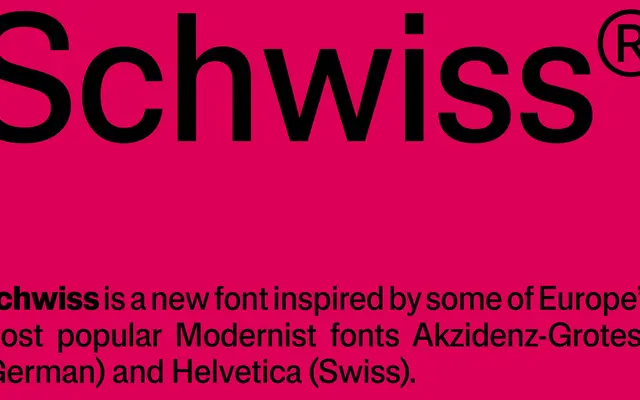
Schwiss
A 14-style grotesque that draws on Akzidenz-Grotesk and Helvetica, retaining closed apertures and a large x-height in a clean, monolinear package.
Seven weights from Thin to Black, each with a matching italic, built around the visual grammar of the two dominant European modernist grotesques. Closed C, G and S forms, square punctuation and monolinear strokes give it a familiar utilitarian character without being a direct revival of either source. Aimed at designers who want the reassurance of the grotesque tradition with a slightly fresher set of curves.
Explicitly modelled on Akzidenz-Grotesk and Helvetica, two canonical European grotesques; monolinear strokes, closed apertures, and large x-height place it firmly in the grotesque tradition.